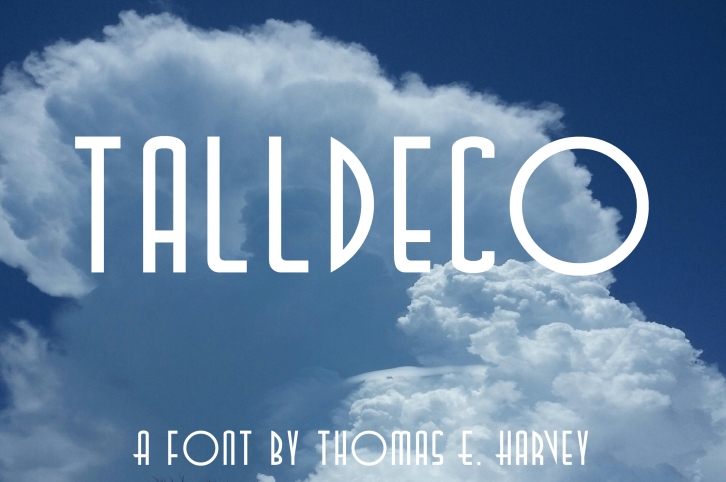
TallDeco is a cool and modern looking display font. Whatever the topic, this font will be a wonderful asset to your font library, as it has the potential to enhance any creation.